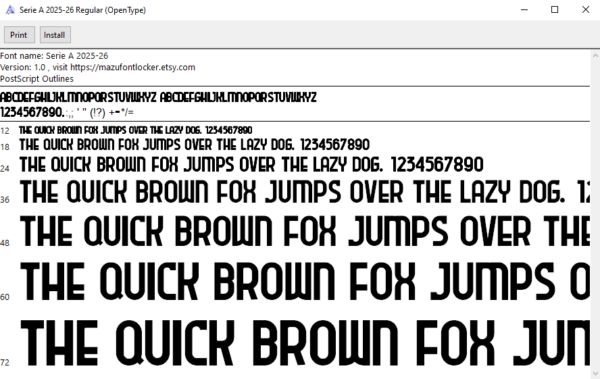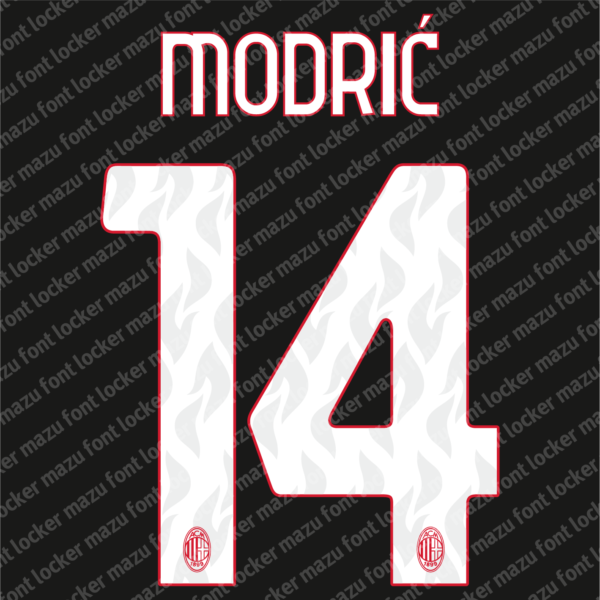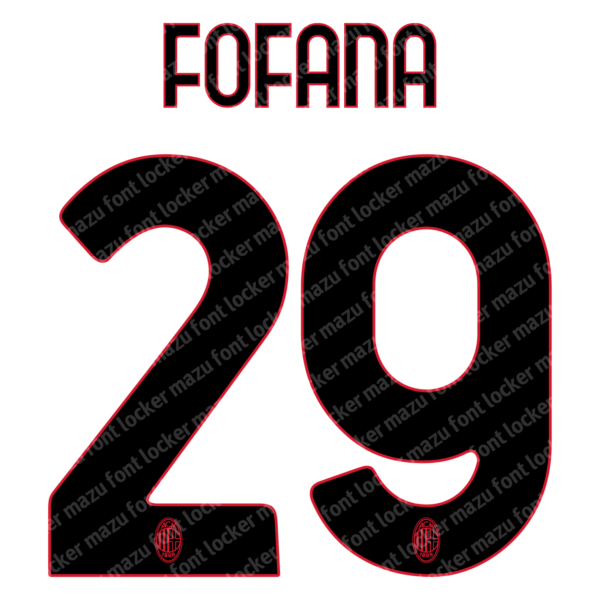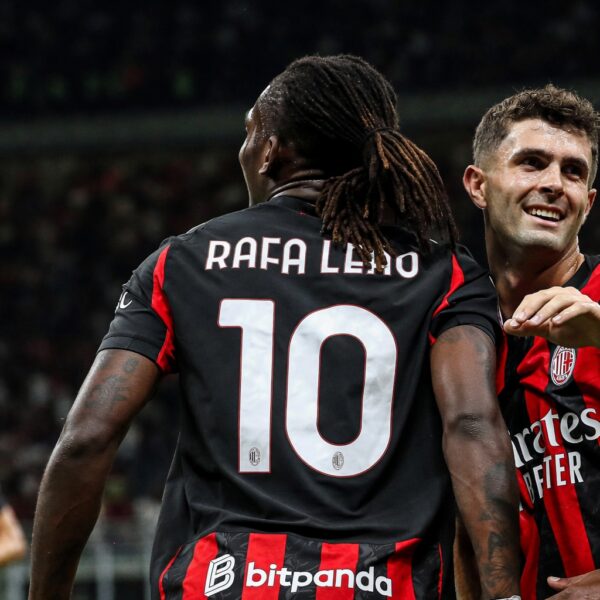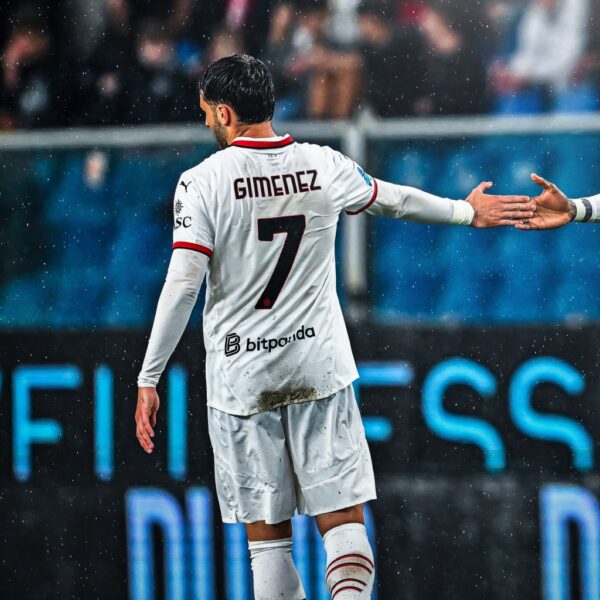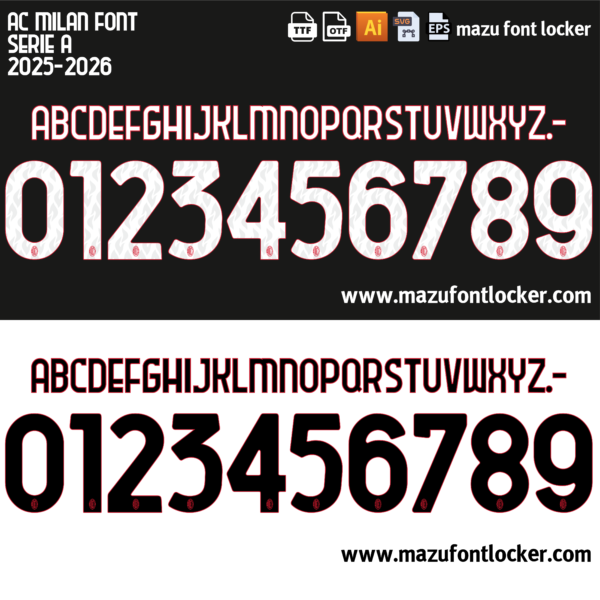
AC Milan 2025-2026 Font – Devastating Rossoneri Dominance
Download the AC Milan 2025-2026 Font and experience the timeless power and elegance of one of football’s greatest clubs. This premium AC Milan 2025-2026 Font perfectly captures the bold, sophisticated typography of the Rossoneri’s iconic 2025-2026 season, delivering the same passion, prestige, and winning mentality that has defined AC Milan for over a century.
Every letter and number is meticulously designed with sharp precision and authentic details, making the AC Milan 2025-2026 Font ideal for creating stunning football posters, social media content, custom jerseys, fan merchandise, and professional sports designs. The rich red and black identity radiates strength, heritage, and pure Italian excellence that instantly commands attention.
AC Milan 2025-2026 Font Vector
The AC Milan 2025-2026 Font is a premium, high-precision football jersey font vector meticulously engineered to capture the fearless energy, explosive passion, and electrifying identity of AC Milan’s legendary 2025-2026 campaign.
Inspired by the mighty Rossoneri and their iconic, high-intensity performances throughout the unforgettable 2025-2026 season, this font unleashes a bold, majestic, and devastatingly powerful presence that radiates unbreakable Milan pride, rich Italian heritage, and unstoppable fighting spirit. Every letter and number has been painstakingly recreated with razor-sharp precision to embody the vibrant red and black identity, relentless warrior mentality, and glorious legacy that makes AC Milan one of the most passionate and feared forces in world football.
Feel the fire of the San Siro. Ignite the passion. Unleash the legendary spirit of the Rossoneri and the unstoppable power of AC Milan 2025-2026.
• Authentic 2025-2026 AC Milan jersey lettering style
The authentic lettering style helps recreate the classic look of the AC Milan 2025-2026 kit with professional accuracy.
Unlike generic jersey fonts, this premium set is crafted with obsessive focus on authenticity and unmatched precision. Every detail is meticulously recreated from the original match lettering style used by AC Milan during the legendary 2025-2026 season, helping designers and collectors create ultra-realistic football shirt designs that radiate pure Rossoneri greatness.
This AC Milan 2025-2026 font vector set is designed for authentic football jersey customization and works perfectly for retro football projects, collector designs, and professional sportswear artwork.